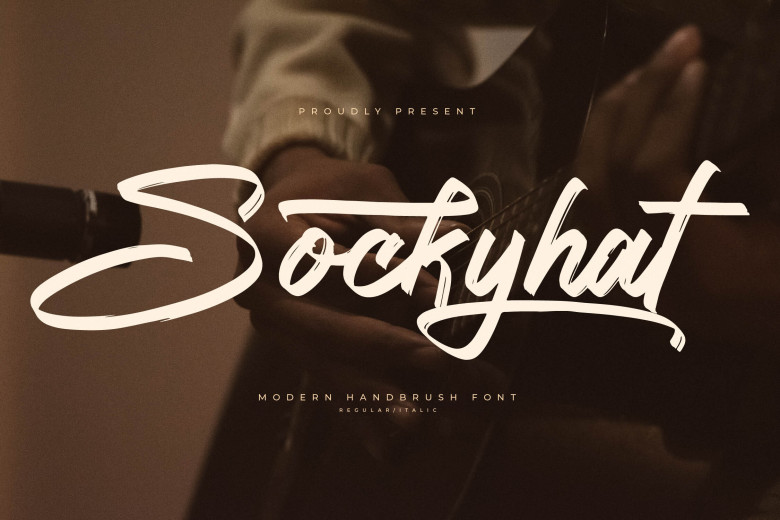
Sockyhat Font
Sockyhat, created by Letterena, is a Modern Handbrush script Font designed for multiple designs such as logos, branding designs, homeware packaging design for products such as mugs or posters with quotes, shopping bags, tshirts and books, name cards greeting cards invitation cards labels watermarks photography special events and any project requiring luxury serif effects.
Sockyhat Brush Script Font